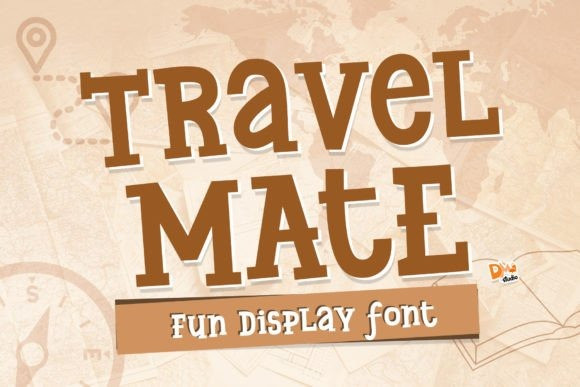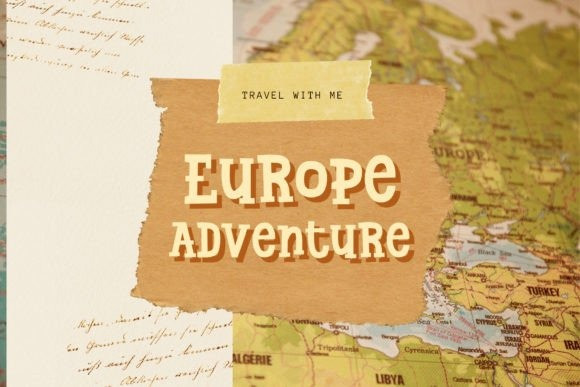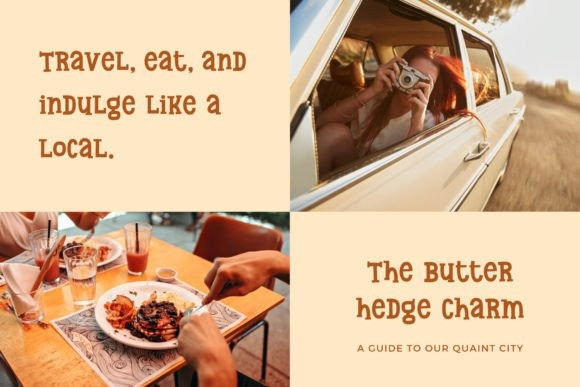
Travel Mate Font
Travel Mate is a fun, quirky, and adventurous display font perfect for all your designs and crafts. Add it to your font collection, and let it make your creative projects outstanding!